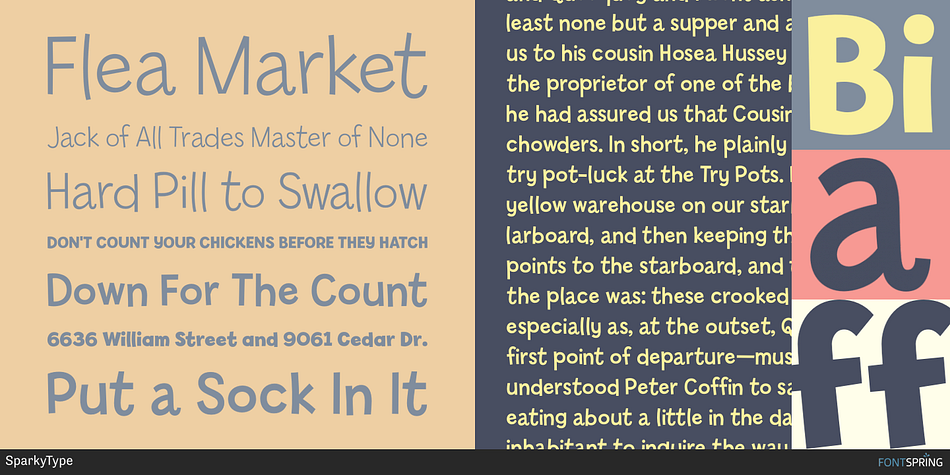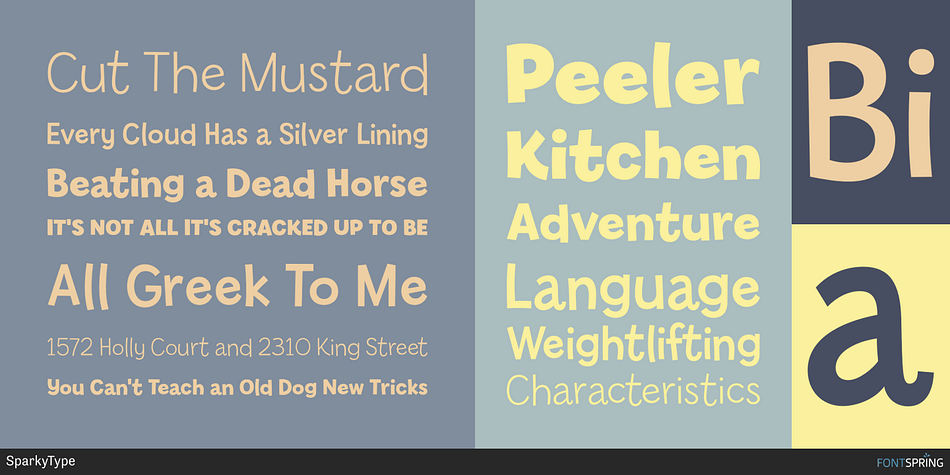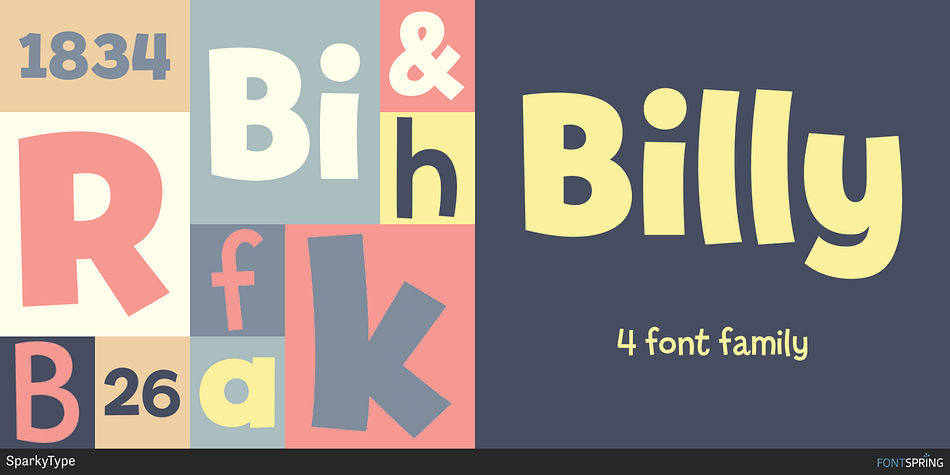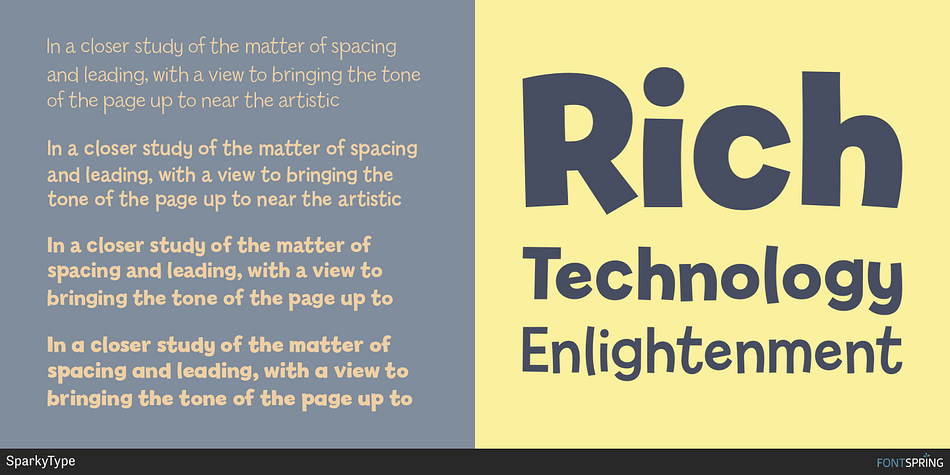
Designed by David Buck, Billy is a hand drawn and kids font family. This typeface has four styles and was published by SparkyType.
The Billy family contains four individually useful and fun fonts.
When combined, the energy and strengths of the different weights play off each other creating an essential family.
| Styles | Hand Drawn, Kids |
| Designer | David Buck |